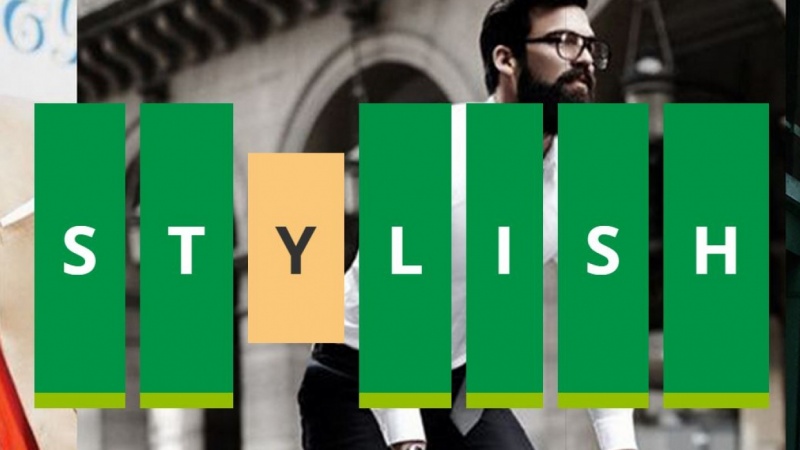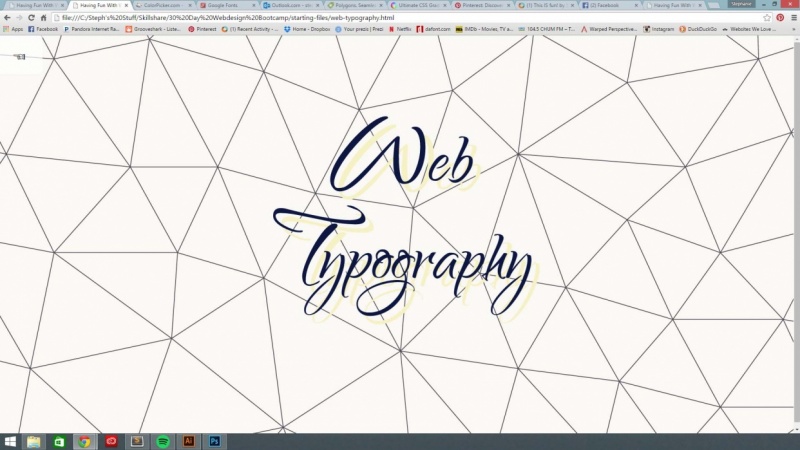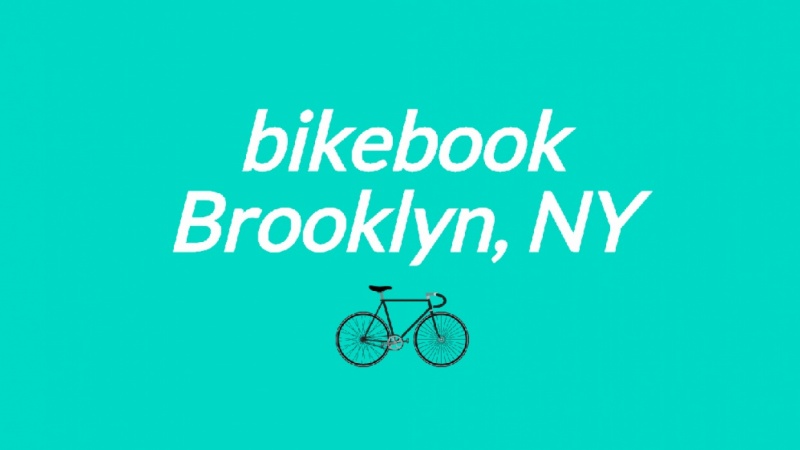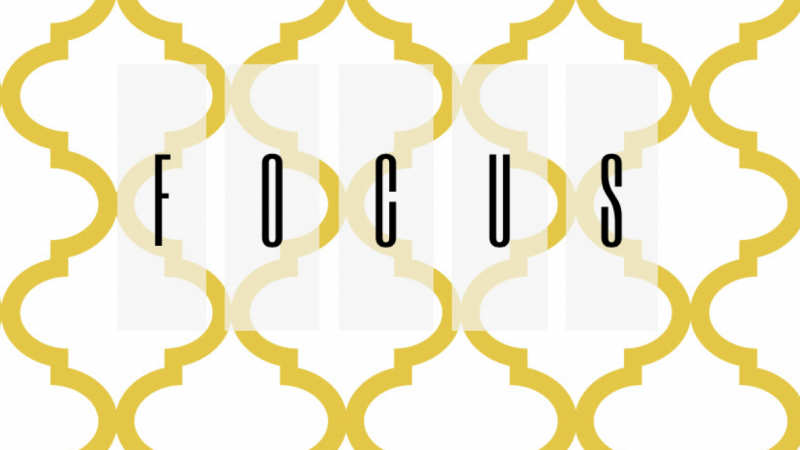
1. Introduction: Hello and welcome to having fun with weapons on Web typography. This class is really all about having some fun and enjoying yourself with Web fonts and modern Web typography. Modern browses and modern CSS techniques have moved along quite long in recent years, and this class is really just about having some some family that. So with that in mind in this project, you'll be learning a variety off CSS techniques and also looking at some jobs. Get plug ins, Aiken help the more, uh, more focused, more granular control your typography on the end result will be that you will be creating Connecticut five page many signs and using the heading Web funds and look so having fun with weapons and Web typography. Each different page in this mini site will have a different typographical treatment on the text, using it on a constrain example. Here, this is the finished project. So this is what you're be grating. You know, it's a live also used, um, fun polytechnics. Well, just so you can learn a bit more so using migration of top here. So it's having fun with by fronts and Web typography. So you're noticed that with the project. I've included two zip file suits. Download one is the starting files for your project. And one the other one is the finished project. I've intruded to finish one so you can use as a reference to get lost or you want to refer to anything on DSO in Finnish One here. Weaken, Go Teoh our index which the home page for the mini side opening up with safari. And here we have. So this is our finished project. But we could get rid of that for now. This Andi she showed the starting file. So it's a very basic structure here. We've got out html pages, that is their index are impatient and various other pages, but we can never get between. We've got just couple of background images here. Bush, which will come too late on the CSS. I think we got a couple of scripts here as well. These that come up plug ins that I'm going to introduce you to Onda during the project. So that's our basic basic structure. Very simple. So what you need to do now is using your text. It is a choice. I use, um, sublime text, but you are free to use whatever you like. So so here. Really. He's our starting files, so you can see what behavior go our index and now various HTML pages here. No strong sheet and, at the moment, a style sheet. It's got Avery set down a few bits, which I'll explain them in it. But everything else he's empty. Andi will be filling in as we go along. So in the next video, we're going to start with the first place. The home page on donned I'll see in a second.
2. First Page - CSS gradients and transforms in typography: Hello again. So in this sir video, we're going to be working on the first page. This is the having fun danger. So this is how the page looks in the finished project. And I'm just going to show you how it looks when we start off and the starting file. So obviously it's, you know, it doesn't make any sense. Shit. So we're gonna be adding, I'll see it's Essam and we'll have you Teoh to style that. So here we have our index while the first page you've been working on and now takes atheism , Onda, As you can see, it's a very simple, very basic, actually, more structure. There's not much going on. Um, 1st 4 we've got out metta viewpoint here, which makes site responsive on a basic title. We got a link to our style sheet on because, um, some scripts here and I'll be going over these in the seconds they moving from there quickly. So here we have. We're gonna the body class of having fun because it's the Texas called having fun. So that makes sense. We're gonna wrap here a Connecticut wrapping div here, Teoh, restrain the side of the content And then we got 81 and I'll give you an idea of having fun . Hedo maybe having fun there and then you've got now link a navigation league. No, I'm gonna is quickly show you if we go to the finish. But here I've put in the navigational links here and you may know, is like a little hand cliff there. I got that cliff. There's a great website called copy paste character dot com. Um, well, you can We've got various cliffs and I don't know here, but you condone get the html value for So for example, when I wanted this one, I clicked on that. Come up here, copy and paste that. And then you put that into your HTML There is that so that gives you the that and Cliff. And then finally, here we have more scripts and this is another plugging that I should be going through. Surely on that it could fit text. And this plugging controls thes size about text. Basically, it makes the take that you have fit to the size of its wrapper, which allows you to be responsive. So you adjusts accordingly to this on screen and stuff So I'm gonna open up my our style show here on just go over. The few bits of CSS that I've already put in here is not much here. As for the rest of it, we're gonna be adding as we going on, but is a basic reset here. We don't using that much html really service. But the, um, the elements every are using and give him a zero padding and margin and borders its actuators to reset everything. And then down here, the html minimum height 101%. So we you wait, have a Scoble on the browser and then from the body element could be a basic line height there, sentinel. The Texas we're talking the center on, then used this web kit. Tech side adjusts that 200% on that pasty means. Remember using I always, uh, you can help. Brown says it. Safari. Whatever. On, uh, I paddle. I found that this means chu that the the font size tech sizes reproduced in the right way. And so he's on navigation. And if we're going to safari quickly here, that's these buttons here. These where owes hands in them. And okay, that's the previous and next hours, so basically just quite self explanatory to fix their position. Uh, given the moment slightly opaque, sweet. So it's slightly transparent, I say the white background and their money harder on them here to the States. It's fully I take, um, and indexed basic positioning and commit border radius stand stuff. And they make a rapper, which is our containing do for the content on which he sit outside of this. Is that how well tech is going to be inside the rapper? Now I've given it a margin zero and then also which centers it and then a whip of 96% but with a maximum width or 70 ren. And that just means that the maximum well he could be is 70 times the base font size, which is 16 pixels. So 70 times 16. Which sounds complicated, but with means is that it doesn't get part of certain whip. You could make that 70 or 80 or 60 or obtain or whatever you want to be independent, your content, and then when we get under smaller sizes, this with 96% comes into play. So when we want an iPad or an iPhone When he kind device on, we've got 4% laughter ever mean to be a 2% petting each side. Oh, and I almost ago, city may, uh, I did hear a reset. Basically, for that will be h one Sentiments play yet elements. Basically, it puts I if by default headings will have will be in bold on. Uh, if you don't have could be using these weapons, we don't have a bold version off Blossom. Say the browser, put his own next vessel wait onto the form, which is the ugly. So if we put front weight tonight, er that basic returns back toe the basic form without ironies of interruption from the browser. Okay, so now let's have a look. I was starting files in safari, so maybe absolutely As we can see this. No, I'm not going on here. That is starting out on the text. So let's head back into our ready, sir. Now what I'm gonna do first, I'm just gonna a couple of little bits of CIA says here into the see having fun. H one. That's the H one on having fun. Page. So got front side It's a full back front sides cause will be controlling that free job. Skipped a bit later. But I will show you that when the time comes God, basic line hunt here. We got marching the top so we save there. Let me have a look in safari. Don't take that. We always sent it and it's Yeah, we can see it now. So let's go back into here now. What we going to do? We're gonna choose. We're gonna be using Google fonts about weapons today. So first things first that scary just firings. Google fonts. So the phone, if not for you to Google fonts This is basically it, Andi. You can choose so you can understand thousands of different fonts weapons you can. You can browse Neville it fruit so you can teach categories There you want to Syria sensory of handwriting. And you can do different fingers, isn't whips and start from different scripts Latina or Arabic say really equate you do. And but all we know which one I want say it's called monotone. So on. That's the front of using so on a deck to my collection review it. Yes, everything is good. There When you have a collection, you can put two or three or fallout me 41. But for the purposes this project, I'm going doing one at a time for each page. So basically, let's go to use. So yep, that is anyone style for the fun here, and that's this one. But sometimes you have, like a bold or italic or whatever on, and so that's what we want to use. So we go down tm gummy, important into the CSS. So what we do, we copy and paste this. Take that. Copy it going to go see Assis and always I was putting importing stuff the top so it loads first. So leaving pointed out from there no one's going back into the Google funds and here gives you an option. The code to CSS cohere. Teoh called up so that someone it's on, there's We could be in place. Get back into here, Do you that there. So we've now imported out from from the Google funds, a P I and then we could you up without CSS here, so being well, that's saying that we should be out to see it Now we're going to safari go to about page thing fresh and there, you know. So now I'm going toe introduce you to the to Jarvis, get J queria plug ins that we're gonna be using to have a bit more controlling outside. Probably. So first of all, I'm going to show you lettering Js or dot Js which is ah, plugging made by the guys at Para Ville. It's been about for a few years ago. It's still really, really useful What this does when you included in your code. So you thought that this little is heading here? It wraps that heading each individual letter gets wrapped in a span element with his own class name. So basically, you condone style each individual letter and which opens up a whole world of possibilities . So what we can do here, weaken Okay. And in the baby chair, you've got some examples here. Stuff of the news is is very good for counting as well. From a tactical point of view s a go to get out Plage. And here we have it on. Basically, it's got funding structure, Jim, how to use it. So what we do is we go toe download the zip which is as it filed with all the basic files we need. And here you can see what it shows us that we put the ascent are heading which we are shaving. A second marriage came out and then outputs, uh, now text each one wrapped in a in a span element We were different, which are one jail to Joffrey. We'll call one, uh, was made because started style beach each close. So let's go back into our fix it here. So if you go into and experience, you can see here where firstly, I I called the the A J Curry. Maybe I from Google maybe eyes here and then I put in. I have cooled up Thea the lettering Js while into the scripts folder here. So that's the year l there for that on. Then you see here the h one, which is that the text having fun are given an idea of having fun Head Oh, saying hey have coded buzzing, having fun head up on induct lettering. That means each different letter having science pan around it. Now I'm gonna show you the next plugging we're going to use on that is fit Text again by the same guy. Some power ville. Another great protein. Andi. This basically other said before it allows you to make your text fit or whatever. Um, it's container size. It's say show you. Here. You see how that the text vic text it expands and to the right side of each time so we can down. I don't get the game Same thing here we have or the basic instructions about to use it. Very simple, he says. And so you click on that down on Pacific eight. I'm out of the files and then let's get into now take sillier and here off. So here we are again The J Coury Doc. Tick ticks, Doctor. Yes, that's in the scripts folder and then I've called it here. So again, having fun Header! Which is this? Each one here. Now, this is the tricky Paul, because it ah, you have to fiddle around with this value here Now the small, though free to fit the size of the rapper. So, for example, at the moment it's the norm. Port five grass. Now that fit happening here Safety. This is fitting in nicely into the rapper. Now, if we go back to hear if I change that. To say what? Wait, save it. Keeping the farm A We'll see that it's now quite small. But it was ST that STAIs, no matter what we didn't see, it was no 0.5 about size for that says, keep it. Is that so? Moving on living on that several. Okay, so going back in tow missile. But we re up. So that's safe. Fish that say, First of all, I'm gonna change the background color here jeans. And I want this text to be, um, upper case. So that's going to hear to me. So going to give the going to that this is the body of the having fun page. So you like the background. It's a very dark grey, always black. And here I'm going to put that case safe. But that's gonna put your color there just like that, that white So we can have a look at him so that I can refresh that. And it's not the case now. I don't like this. This the here. See where that's got? Big gap there. Where the lecturing Jace Incumbent in tow to use because What we can see is here each of these different characteristic letter hands in class, and I can liken alter the margin there she needs to letters to bring that in. So what I've done here, if we go to him, So that's the having fun chartering and that's that's the class that's wrapped around that letter B. So while I do is give you and margin a negative knowledge, you know, on the the left hand side here. And I'm not doing it in pixels on doing it in percentage off the end. Which means that percentage of the front side, which means it's a relative, things that when the front size gets bigger or smaller, it'll be the same proportion. So if you could save that, I never look at the page, don't it? You know, right. One do now is I want to give I'll text. And that is why we wanted to have this nice Grady in behind its well, in it. So what we do now, I'm gonna get rid of this, and I'm gonna pick in the car. Okay for that which will explain now. So, basically, CIA says what we can do. You use the background image we can then and a linear Grady in any kind of great and we want to. And this is the code fitness. It's the colors here, the centuries of how the radiant moves and then we put it background clip texts, which basically means that the back right on your fixed the text I'm in. What? That what we do here is the text feel color. So you make what we're doing. Basically is making the actual text transparent, making the background of the of the and then making the background clip rounds the actual text and then given the background this color Andi, I was saved that Then go into our page. You see that? They're well now I'm gonna give you a link here too. A site. I you did not degenerate. Sees this brilliance because, let's face it, there's a lot of cold involved here, and it's quite complicated and quite weary toe type out each time. So Mr we're told here weaken, for example. With people like changing color, there will pick a grain. Okay, this is we can maybe at one here she's a card app that while came and it's been ugly, but just just an example on that she just give it that it's a that could be out graded now and then we can just copy the code for me out of the one we want to use the web could any ingredient. But it has a different Katya. For you could have laws for that five Fox. And except you, Except about the purposes of this project, we just working in safari. So, uh, what we do is copy this code here. What could be integrated? Work it being off safari in crime find actually your Oprah now? Well, uh, we could be that put it into how internal CIA sense. Here. That's where you put him. And then we get going. You. So that's have a little look back into our code here, and then they see what we can play around it. So you got perspective there. So it's 1.5 now, so let's change that to perhaps look five, save it and then see what happens to their to the page. So refreshing. Yeah, we only see it's gonna you know, it's even more perspective there. It's this guy picking near that's changing back tables. And then this is a rotation on the X axis. So that degrees now it so happens we've making 40 degrees. Give it up age. Change that and it's got different rotation. Now let's go back 10. Let's make that say 1 80 degrees. Save that. Going to hear? Maybe he's upside down. So let's go back into our code here. Let's get back 30 and then this is the Y Axis. So it is a new opponent. Fine, it's make it mum pointed for even see what happens there. Save that. It's a funny and they're really you can change the game. So I advise you to want to protect finish, to have just a play around with these things and then that. So I did, and you get to you understand how things work, so that's changing back anyway. It's how it should be. Site. That's how it transformed my perspective. Sort of irritation transformed, done. So now we want to add some senators to L Hall estate on page one. Um, it's going to safari again here and now we can see here in the Finnish files Got this nice , smooth mation here for me over ripped. So about the moment, it doesn't do anything. So what we want to do you think you want to go into our being here and begin the basically on the whole, the state we can emerge in a with ease transformed here. So basically it goes back to being a normal text. So it saved that going to safari and thanked it. Refresh it something and then with me, hover over it. You guys back to your butt. It's kind of but the junkie and written Nasty said, What we're going to do is get back into L. C. Assess, and we're going to give it a little transition there. So we put it on the H one element and it's harvest eight nicely. What it says. This is a everything transitions. One second is linear, so basically it's a smooth transition between different obviously. So it's safe that go back into our file and then refresh it and then, But it's nice and smooth with him. So that's the first page on. We've pricing transitions and turned transforms to the text there. We've added a grade into the background. Andi, Uh, thanks to the harvest state as well as you can see adding some jobs. Get plug ins to control the current ing here and also this text size. If you just get it down like this, we should see moves to the nice size. Whatever the screen size. Yes, so that's the end of the first page on Donned. The next year will be going on to the with Paige.
3. Second Page - Text shadows and transitions: So here we are without with Page our second page on Did you concede? Here we've got a nice san serif font on a place of your every green background onto the page on, Given the text, this kind of drop shadow, which I'll be going to in a minute. And also a grading on the on the job show Starting was a pinky purple to us or more so, Bluey color And on the harbor effect, the shadow shrinks and the grating is reversed. So So let's have a look at our starting Beijing as we can see a game, it's Yeah, it's a mess. Could be even started yet. So that's, uh, going to Elsie ASUs on. And that's ad some style. There s so we couldn't enlarge a top. We've got a fallback fun here. So just in case what injuries and job scripted to, say board or doesn't work whatever which would apply to the fit text plug in. We got a size declared there that will fall back on many upper case. We've got bigger texting Dent. There's because we've got his long shadow on the Texans moves over there. Let's spacing and connect color Now, that's, uh, but background. The pages were also this is the kind of I chose not gonna show you, um, site that I love to use. It's very simple to speak in colors. It's gets called color picker dot com and basically get you can choose any color you want here. But the respect from there you can choose difference, darling. Nine. This is something very much like Foshan Whatever. And it just gives you the Hexi decimal value it gives you. The actress beat me to the hue saturation in black And then you get the RGB, which is a big green blue on shoes. CSS values. Yeah, so I change anyway, this you'll every color. And so that's it's going to save the pain. First, save going. Teoh here on update it. And then we've got this. So this have a look at the direction our page. So the same set of the game as a last paid very, very simple. And we've got how fit text here again and everything and out now navigation links here. So let's get back to the page. So because there's to be one. Ah, nice made from there. So let's go to Google funds on this time. This one I chose Oswald. So when I got to collection, use it. Anyone know, uh, get here, Go code and then we can play starting to now. Slow shape, Teoh. Okay, so she But here, that's how most food, no doubt. And then it's good down, Teoh, you know? And as you can see, we've saved that less. I'm going here going back to our page and then refresh it. And then we are right. So I've also we should mention before added some more fullback fronts here. So in case this thing goes wrong with the Google fonts, we got having taken you with an aerial declared as our backup from San Serif forms my bank . See? It is again now. So it stunning the web page still. So what I want to do now that's going Teoh age. So? So we got our basic text there now I want at this them Grady indeed. Job job. Now the way to do this a while, then it here is just paste in the code Now, which looks for like home because it is, um, basically in sales says you cannot detection Now what you can do is you can, for example, that me If I get rid of all this, just have one for now. So let's get rid of all days. Save that. Let's look out pain. Now See, we got one pixel, one pixel protection of their and I started off. I got into college. Color picker have started off with these. Nice. So probably kind of. Now what we can do, we can We can start to build up our shadow here. So if I go back to her once, what we can do is have a look here. So basically how shadow is We've got this hour break green and blue. RGB code for the car there was minus one pixel which gets an offset. One pixel there. No, what I've done here, I've got right down to 60 pixels, and each time it's 123456789 10 Except except this basically expected up, one picks out time, which can give you which gives you a very off elongated long shadow. Like what I've also done. I've changed the theology be value here by one each time on the 1st 2 colors last one the same, but change these lot last two county time. So each time incrementally we change the color of members of slightly into the into The blue eater was coming, and obviously this is a very long winded and complicated, so process, but it's a stairs uprooted proof of concept, if you like just an example just to show you what you can do these shows. And I wouldn't advise you news that on a lot of things, but it's there, stands have a family. So if we say that now and get back into our page, we can see that this shadow here we built up pixel by pixel when changed it each time to the blue con, and now it's got this nice made on it. So let's go back into our CSS Don't actually live here first. So if you look at the final one, we see this nice effect. When you have over, it's what I've done here is on the the hover state is here. What I've done is maybe to shame gonna could be that and basically what I've done here, I've gone from 60 pixels, but on the hover state. We've got 30 fixes, so it's half the size and instead off. But we stop this color here started with that at the bottom. Well, 11 more debate, same thing. Bracing babies, the reverse order of the colors. So if I think that, then going to him, we can see it's updated. You have officious all right, and then the area we can see. How shall I change? They're degrading being invest, and it's half the size on what we want to do it. But it's still quite junkies, and it's what we want to do is as before we announced our linear transition. So we'll put now now, which is no 0.5 seconds. There's half a second transition put down that. Say that, giving to our page on and refresh it and then we all. So that's the basic concept. Execution off how we at this stacked long shadow of a grating on it, which changes when you over over and you can also see how Let me read this page here and made the brother we know smaller because of the fit Texter. Plug in ill. It's in Onda. Uh, let me to show you one quickly thing I just did. I just added a little responsive tweak here. So when we get to smaller screen sizes, I've just changed that margin. Talk a little bit and change the texting in your baby. Obviously, it fits in nicely on the on a smaller screen size, so there we have it. That's the second page.
4. Third Page - Individual letter styling with plugins: So here we are in our third page, which is the Web fonts page, and I'll quickly talking through what I've done here. So I put a tiled protection background on the background here just for saying it different . And I've start each individual s a here with in the side, this or blue box that when you hover over, it shrinks toe to a kind of changes side kind of changes in the size of the box changes. Now, now done this using the lettering dot Js planet again, but I'll go into more detail in a bit. So if we have a look at their starting page, of course again, it's It's a mess. So it's, uh, going to hell. See assists here, deputy in here we are just about France page, so that slowed up that background texture there, first of all, so that's the background. Got little base, color their gray, and then we've got the euro to the images, the image story, and it's in the images folder and then bets shoot a little bit off EBIT margin. Top there in a fullback. Fun. Now it's going to Google. Google fonts Sorry on Day one I needed for this. The bottom using this page is called Six caps. So we go through the same procedure again Madden Collection and using it and stuff. And that gives us our code. So I'm just gonna copy and pace because I copy and paste in. Now, I could go from there and then come down in to the CSS again here and do well, what's again using the six caps there? Yeah, So we want to have back up funds, sir. That gives us our front size. Get us out. Uh, outfront there as well. So that's get back into the page there. This look, I didn't say that. I don't safe Get back in here. And there were So that's our basic Google phone loaded. So if we look here in the web fonts actually, no page you can see again where I live called the lettering. Don't Js for our again like we did in the first page. I'm given the actual on the idea that were fronts header. But then again here. So then what? That lettering now does it. It gives each each letter is a spaniel, earn around it in class and also you can see here while also again got the, uh, perfect text sector once that's size that up to. Right? Right, So maybe up. So if we get back into your CSS because each Spanish women given the web funds heading, uh, he's gonna be style herbal weakening. What we can do is once again, you know, so they can start bench spans. Say, yeah, background kind of. There s the RGB isn't That's that blue slate transparent Connor margin there as well is impending and the kind of wine. So we saved that. Let's go into our page and then update it. Were you giving up? So you can see there where each span has gotten a bit margin between got no to paying their you donated a rectangle shape. Then we could believe that this study transplant believe background, you can see in the finished we want to have a little bit over funding over there as well. So what we do is we go back into us, see, assess, and then maybe hover over. This family wanted to have less padding, background change got up to make it white and change the color of the text to us a very dark. Great. And we'll say going to give it. Yeah, um, many a transition before you have over effects on gonna add it. Teoh here as well. So it resized nicely, Onda, once they got going in textures from there, So we're gonna have a case. So you saved that. Then we go back into our page, and there we are. You, Kal El, I'll slightly transparent blue box there. We've got have fun laying out. What? The case. We got the Hoffer effect there and the transition between all and there. That's the that's how third page of weapons page. But if we have a look here because all this extra padding and minded you've got there when you re sided down smaller, it's a bit No, we didn't figure that. So what we need to do we need to go back into our CSS here and, uh, where we got now. Now, media prairies, hair, smaller sizes, that's add in. Let's change the imagine, and depending on the spans here, gain on the hover just so when it goes into smaller sizes, we've got less padding. This margin stuffs weaken tree living in. Say that gap back into our page, refresh the page and then let me get you know, we can see how each for adapt to that to work, you know, and then back again at the biggest. That's the end of the third page.
5. Forth Page - Diagonal stripey gradients and pseudo elements: Okay, so now we start work on our fourth page with the word and so what I've done here, I've got this nice pink background basically got Let it in a way to fall here, which is bedrooms. You're going to the minute on. Given us political up is he's drop shot out here, which, given the so striking effect and when you hover every you know Eastern, the shallow moves away slightly and also becomes the strike becomes more condensed because this illusion of perspective there So first things first that's going Teoh, we look at our outpatient very is okay. Never works. So we'll go into Google fonts Onda changing different bevan. So we're going to our CSS already like it upto the, uh, the fun there going down here in tow, Still out. Andreja put the background color arena, and I put the front devon in their good before back phone giving in the Connor margin the top lips and letter spacing line heights and serving. So if we saved that and then now now what she had Let's have a look. L uh Oh. Aged. You know, on you say game using the fit text plug in here again, said It's no point free fire at the fiddle around it to get the fit. That's the right number. So if we go into safari evident here update that Neil Young is our basic lettering. So let's have a look here. What we do next is to add how shallow years really with the final page again, we've got this this drop shadow here. We've got a little texture as well now, whereas before, on the this page we credit is texture by building up actually using detection of CSS property on this occasion, you've already used protection out here, so we I want to create this shadow as well. So what we do is we need to use the word before the after pseudo class. So let's go into shoes is stone. So here we go out, we're gonna use the after cedar class and CEO classes are same is like a POV er or link or whatever and the after one is basically deal to content. So you condone add content before off, like used before. Uh, well, element you want to So on these case, we want some content extra content after the h one, which is gonna be our shadow. So I'm going to paste in the look the code here. So let's get that today. So So the content is gonna be on, please in the word and we're gonna position Absolutely. Making a position is one relatively so he has a nap. Sleep position, Relations of the original H one Onda we gonna, because he wanted slightly offset to give us a job showing what we never 6% gap topper on a 15.5 2nd gap left. Now, the way that we create this striking effect, it is quite complicated. We look at the thesis one first background side. So you're six pixels by six pixel. What that means if you can imagine that we're using a six by six pixel tile basically to give a background image to these texts, the antics, and that's before we use the background clip property here. So we clips around the text and then the Texas actually transparent. And then what we do here is quite comical looks for more concrete in the actually is we can use a linear ingredient to create stripes. So basically what we're saying knew that the left top, which transparent from no percent up until transparent, 25%. So 25% in downwards into the six plastic square. We stopped for 2 to 2, which is a rich, dark gray going up to 50%. So basically 25% of the square we get this things dark gray line and again. After that we get more transparency in the way to the end. And that is what creates Now. Now, um, we should adhere the stripes on it. Now get back in tan. Now we want This is after Cedo class, the content you want to be behind. So what is it in X minus five, But it alone making block, we make no take show. They got some pictures here. Wait a second. So that's the texture that we have on provisional. Uh, what on then? We? Yep. Yet blocks a textual? None. Let's say that. Go back in and that is actually paid. So we update it and there we see. We've got the hover effect yet, but you can see where this there's the singer after content the end and it's got background . Well, that linear Grady, Um you made because he's striping and we've got so and we've got a small little text take shelter here on the original page one and then this stripey show to sits behind it. But you see, get back to the finished page here with me, hover over it moves and the grading slipped Change slide to change perspective. So we go back into our CSS. We can get down here. So we when the H one is hovered over the after pseudo class scared that changed that and put it in there. Switch. What we doing here? We're changing the position of it on over. So it's further away from the top and further away from the left. On the background side, we're changing to five pixels, which makes the whole thing of its smaller. And then if we give it also another, then your transition, which was just placed it. Here we are seeing that again itself half a second to transition. To make it nice and smooth, we go back into our page. This is the won't see, say far nothing's happening. There's updated and then I remember. And then we are We've moved that the shut down until left of it. You changed the side of it. So it's a bit Stoller fair away. And that's our next tight finish. Yes, we could see him when we resize the browser. Everything fits in nicely. You could agree. Be using the text, plugging and if you're going to see a sense here. So I added a few little tweaks here at the media queries. Smaller screen sizes. So we just got a lesson margin, Andi. Also more margin than we just taste changed a letter spacing a little bit and, uh, yeah, there's are finished page.
6. Last Page - Make your text look like Street Fighter: So we're on South final page now. It's a Web typography page here. And when I was looking for someone idea for this this type of graphical treatment, I was just happened to chance upon the ST Vital logo from way back in the eighties nineties when I was a kid and I thought, Why not me? I can try and do something similar to that. So periods here and it's given that and so what I've done. I've got another Grady in here over the text, and we even have a drop shadow, and I've also skewered it, so it's sort of type. It slanted and also made the first letter of each word much big up. And so I'm gonna go through each thing individually in the CSS. So let's have a care so that she said, we are now. So see? No, nothing's happening here yet, so no. So I know you got to say we've also got be ever thing happening here with the whole of ourselves to change. The changed the the color of the jumpshare here, toe white into the black. So if you ever look here in the HTML, it's basically the same as it's been before, but we're not using any fit lettering Js today on this one, but we are using the fit textiles and that's the the signs were there on. And what I've done is we'll explain later. I've broken up the dating Web topography and given each wide a class woodside a word one word to on which is basically the same thing as the lettering Js plugging does. But in this case way, we can just do it like this because only two words there on So it's looking out. See, Assis? I mean, so that's good to hear, said he Just now, uh, stopping to fill in here. So first things first, I'm gonna give the background. Is this off? That's this this'll eighties style, background tiled image and making to him. So we're gonna give it Cem some line heights and start startek fullback front. There are margins and everything. This one we actually just decided Teoh a line of text to the left instead of center. Every else is, and I changed from Google fonts Dean. He's cool permanent marker. So up there and I went over Shane, you good before website game did you see the court already? Ah, there's the public market. Carry that guys in now. So I was gonna make down to think answer that simple. So that should be our basic stylings that saved that. Go into the pain and see where we are. We are but near me up. So we've got we haven't given in to tell you We are funding their and God background. So it's get backing toe. She s Innis. So what we're going to do is we can skew it. So we do this by that. So is a ticket transformed skilling it? And that's the degree to which next And while we're gonna be using So that saved that. Let's see what it looks or dune burial that gives it that that's a leading slanting shape. So let's get back into here now. We're gonna never, uh, radiant to the to the color of the text. Saiz. So I went back into, uh, my color picker and chooser the yellow in Norman. She read, That's the grading code there when the going to be clipping it to the text of the ethnically broom, making the actual text transparent that saved that get back into safari. Syria. We are there. We are. We've got a thing going on that. So now it's going back into our CSS, and what we're going to do is, we want to add, I never judge a drop shadow here to text so we can do. It's like slightly different this time. We can use the Web, get filter drop shadow, and that gives this the size of the drop shadow. There were no one and no, but one him. So it's always a proportion up on a kind of black that's saying that go into us five Ever love again, not dated. So they're really there's our drop shadow. And the reason why we do this way is because when you and a Grady int to the background of the text that we have here, Dr Grady in is actually in the background of the text, and it just clicked and he made it, takes transparent, then clicked it around the text. So if you added a regular sort of texture that you were before, that tension is shines through here that takes so. But luckily for us, there's a bucket filled why you're a drop shot in a different way. So now we're going to add, um, out different Ah, drop shadow. We'll get filter for the hover effect. So instead of being the expiry of 00 is only black is gonna be white ever so that saved that. Never look at how page And when you have up, you know, now we're gonna add linear transition It and I get nice and smooth, and we're also going to sort this out. Was right Now this is a big our place. I want the world typography to be to the right more, and I want the first letter of each word to be bigger. So what I'm gonna do to go back into the CSS and so can the gift. Remember, each word is wrapped in a spans that's getting make the displayed blocks. We can move them around a bit and go here. So we're doing now. We're using the use the pseudo class first letter. So every span inside the head of work topography header. The first letter of that span will be fun sized one points exam, which means that you will be a 1.6 time to size the rest of word. And then what we gonna do? So this of it that say that. And let's have a look on the pain So they re out so we can see here that we made these two first letters beer, But we got the A gap here. Something's going on. Name isn't good. So we need to turn that. So what we're gonna do is go back in here and using the first letter pseudo class again. What we can do is that first letter. We can give it a negative margin on the right proportion of one. So there's no but one for work out. Should be saying that and get back their page and I see it. It's pulled these dragged the rest. That word in there science going back into L. C S s and then remember that we, uh I need, uh, spans around each words or the 2nd 1 is called blood to now. I want to be a texting there now, uh, just to make it move to the right of it and then to go down moments. So I'm gonna move that given negative margin tops that drags up again. So let's say that then see where we are. They're beyonc Now. One thing left to do is that we want to make the hover effect more smooth so that that's an hour linear. Grady in, um, didn't transitional to say so. And I will make a bit so this time, one seconds it's more with slower these to it and then add that to the hovers. Well, but a thing and that. So it's saying that and see area snow. This I think the president every I see and as we hovered over it, we get in there. You said there. Yes, this is our finished page. The last page in the project. It's gonna check it out, resize the browser. Andi, I'm looking at I think it will just in case this stuff toe creep outside and I'm gonna have a little tweak A with the, uh, the texting dent in the second word. No se the's navigational links up to bigger this size. So what I'm gonna do is going him. Why would he added the reduce texting dent from the Second World Dam and I'm gonna go down ? Yeah, this and then. So it's smaller screen size of your 600 pixels in under the previous and next navigational links, they're gonna have to some reduced petting and reduce border radius. But NATO, So let's get back into the pages. Has refreshed that. Yeah. Just building line of it there. And you can see that our navigational are you, Teoh? More suitable size only needed a big Yeah, that sounds now finish project. So I think the, uh the overarching self philosophy of this project in court that he's really just show what kind of fun you can have. The weapons, Very simply really. And after you complete the class, I would I really recommend it. You just play around with things, play around the grated shadows, play around different web funds on Duh. Just a combination of things we've used today in this class and and see where it takes you . I hope you've enjoyed yourself. Thanks a lot